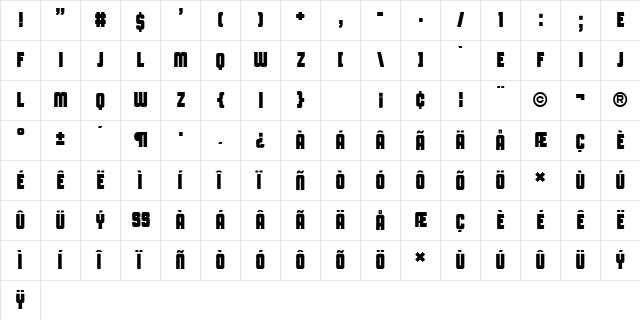
Capital Daren Regular
Design Context for Capital Daren Typeface
Capital Daren takes a measured approach to typography — its balanced proportions and neutral character make it a reliable workhorse for both digital and print work.